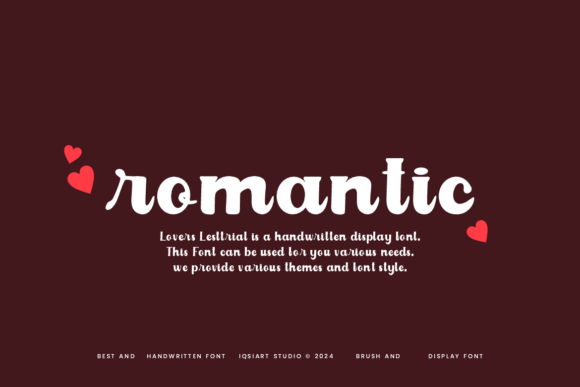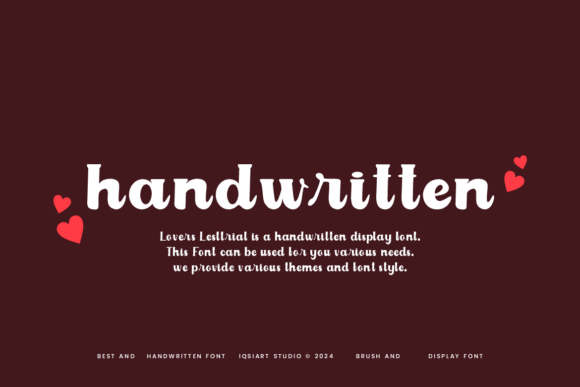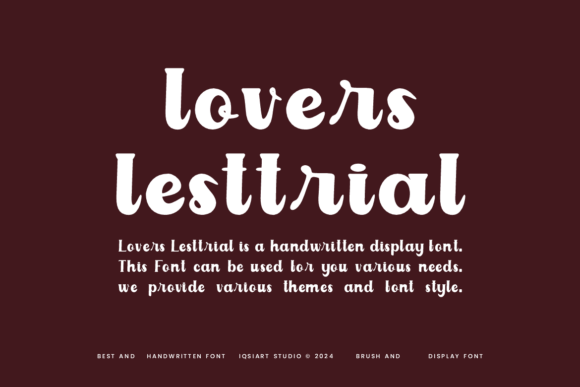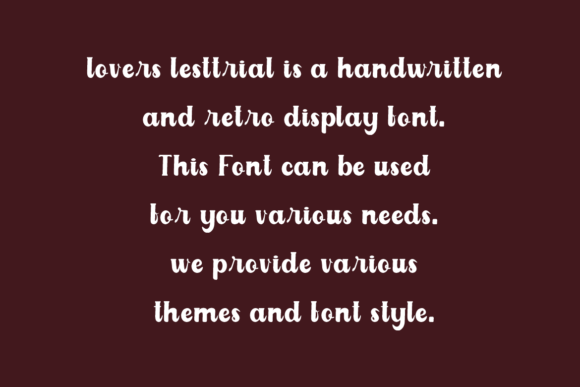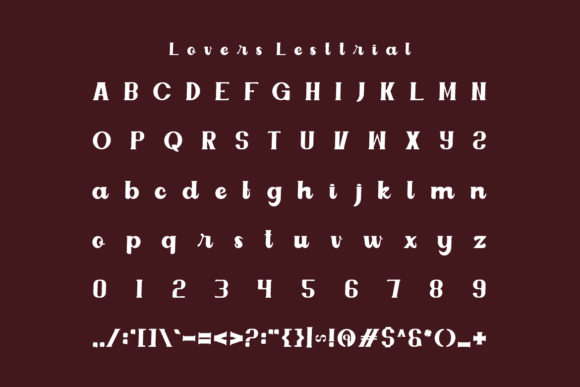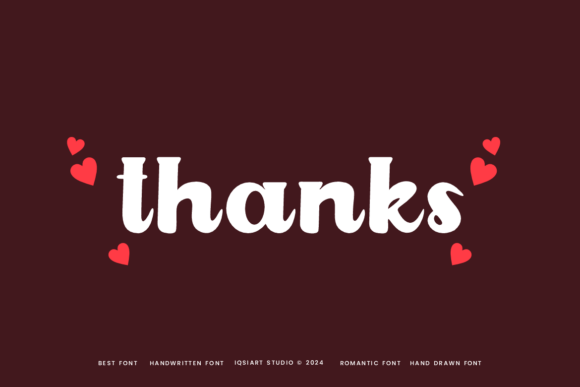
Introduction to Lovers Lesttrial Font
Do you remember the moment you stumbled upon the perfect font for your wedding invitation, or the romantic card you wanted to surprise your loved one with? For designers, finding that special font can be a game-changer. It’s the difference between a project that’s just ‘good’ and one that’s truly ‘magical.’
That’s where the Lovers Lesttrial Font comes in – a beautiful, elegant script font designed to add a touch of love and charm to any creative project. With its soft curves and stylish design, this font is perfect for adding a romantic feel to invitations, cards, or any project that needs a little extra magic. Whether you’re a seasoned designer or just starting out, the Lovers Lesttrial Font is a valuable addition to your design resource library.
Key Features of Lovers Lesttrial Font
- Unique, elegant font style with a transparent background for flexibility
- Designed with precision at 300 DPI resolution for crisp and clear display
- Perfect for use in graphic design, digital art, and typography projects
Honest Review: Lovers Lesttrial Font
I recently came across the Lovers Lesttrial Font, and I’m excited to share my thoughts on this design resource. As a designer, I’m always on the lookout for high-quality fonts that can elevate my creative projects.
What works well for me about the Lovers Lesttrial Font is its unique aesthetic. It has a distinctive style that can add a touch of whimsy to any design. I also appreciate the fact that it’s available for free download, making it an excellent resource for designers on a budget.
One of the standout features of the Lovers Lesttrial Font is its transparent background, which makes it easy to use with a variety of design elements. It’s also highly customizable, allowing me to adjust the size, color, and style to suit my needs.
Here are some of the key features of the Lovers Lesttrial Font:
- Unique and distinctive style
- Highly customizable for a wide range of design applications
While the Lovers Lesttrial Font is a great resource, there are some limitations to consider. The font is not suitable for body text, as it can be difficult to read in certain sizes and styles. Additionally, the font may not be compatible with all operating systems or software.
Overall, I’m impressed with the Lovers Lesttrial Font, and I think it’s a great addition to any designer’s toolkit. With its unique style, transparent background, and free download, it’s an excellent resource for designers looking to add some creativity to their projects. However, it’s essential to be aware of the limitations and use it judiciously.
The Lovers Lesttrial Font is ideal for various creative projects, such as wedding invitations, social media graphics, and branding materials. Its high-quality design and transparent background make it a versatile design resource.
Comparison to Lovers Lesttrial Font: Great Vibes Font has a more refined and delicate feel, making it suitable for more formal or elegant designs.
Yes, the Lovers Lesttrial Font has a transparent background, making it ideal for designs that require a high level of customization. You can use it with a transparent background in graphic design software like Adobe Illustrator or Photoshop.
Q: What is the recommended resolution for using the Lovers Lesttrial Font?
For high-quality results, we recommend using the Lovers Lesttrial Font at a resolution of at least 300 DPI. This ensures that the font remains clear and legible, even when used in large formats or high-resolution designs.